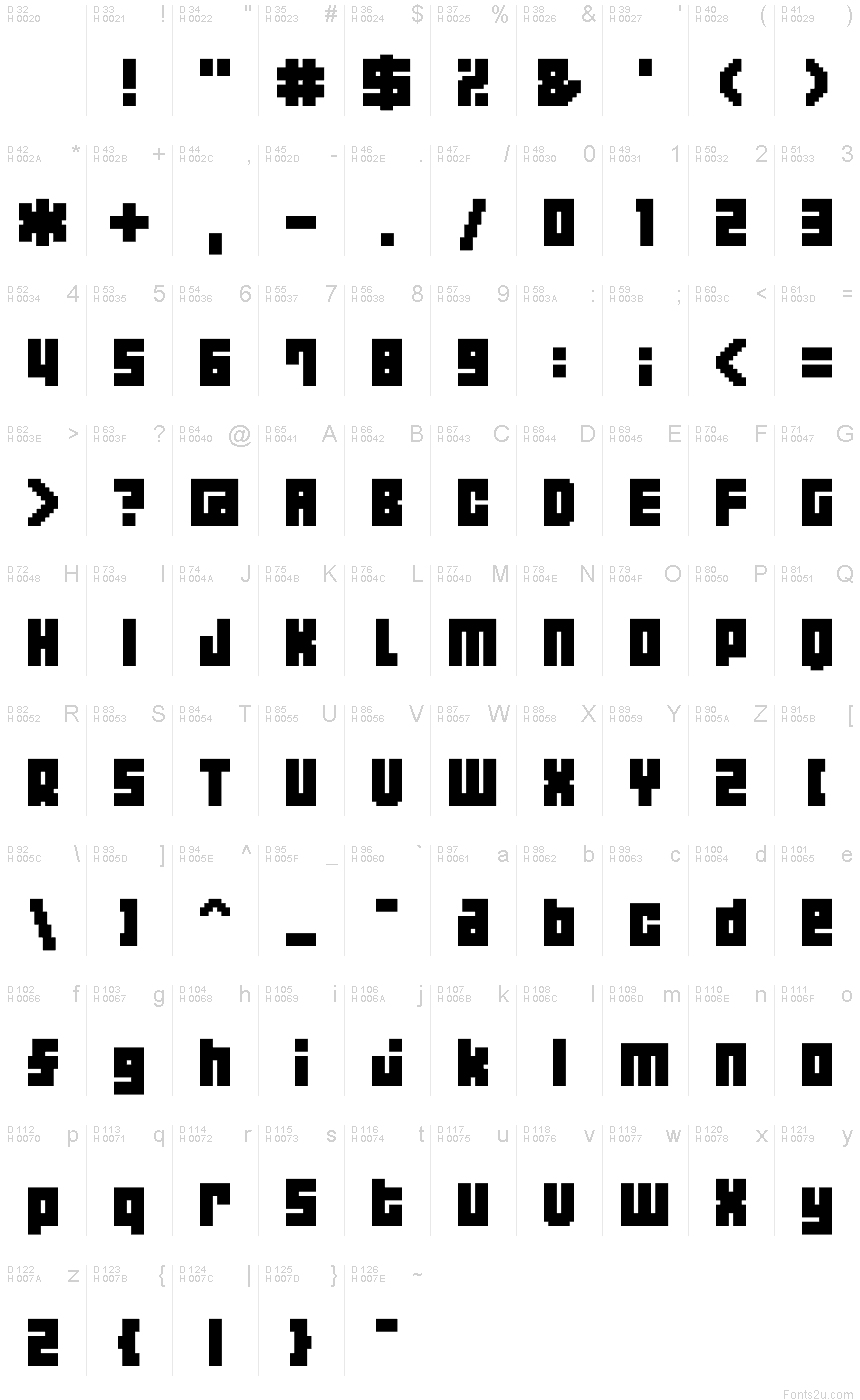
04b_19
04b_19 is a striking, pixelated font that exudes a bold, condensed aesthetic. Designed by 04, this bitmap typeface possesses a captivating, retro-inspired charm that sets it apart. The distinct, squared-off letterforms create a visually compelling and unapologetic style, well-suited for bold headlines, retro-themed designs, and eye-catching digital interfaces. Its unique character lends itself to a range of applications, from nostalgic gaming aesthetics to modern, minimalist branding.
The font's unwavering presence and pixelated refinement make it a versatile choice for designers seeking to make a bold, distinctive statement.